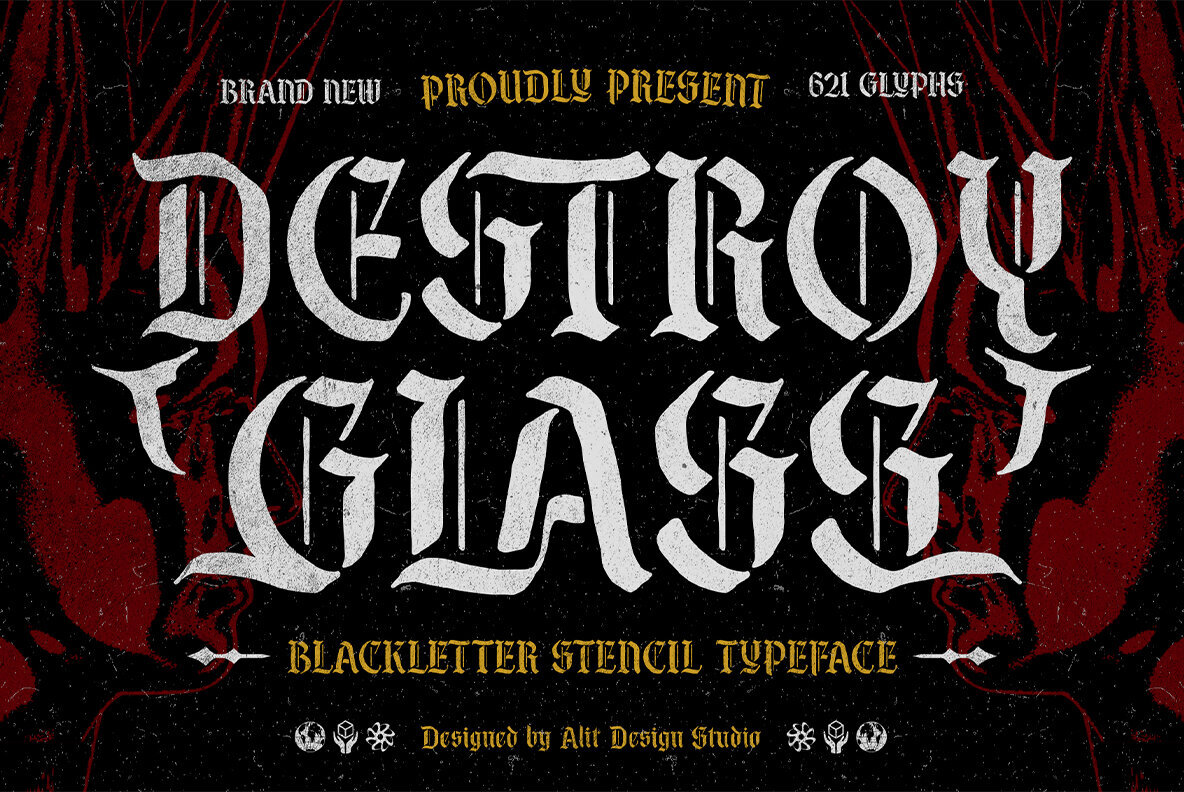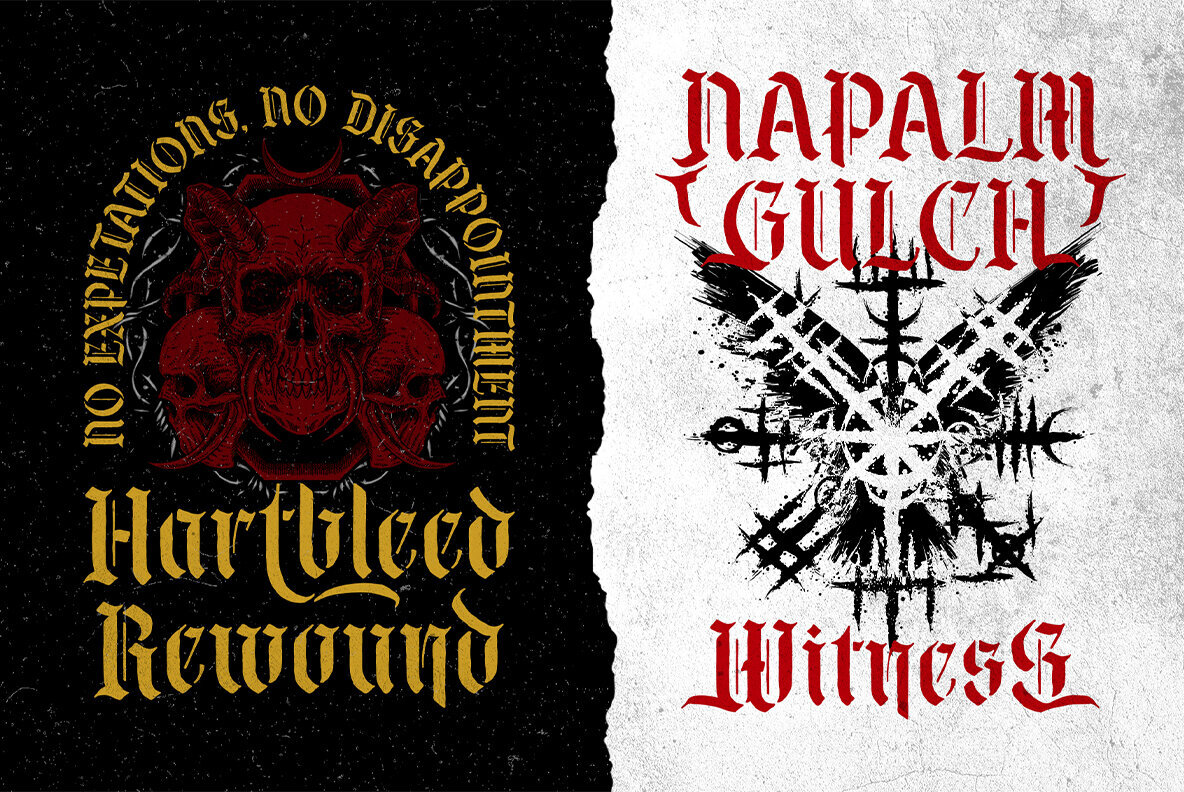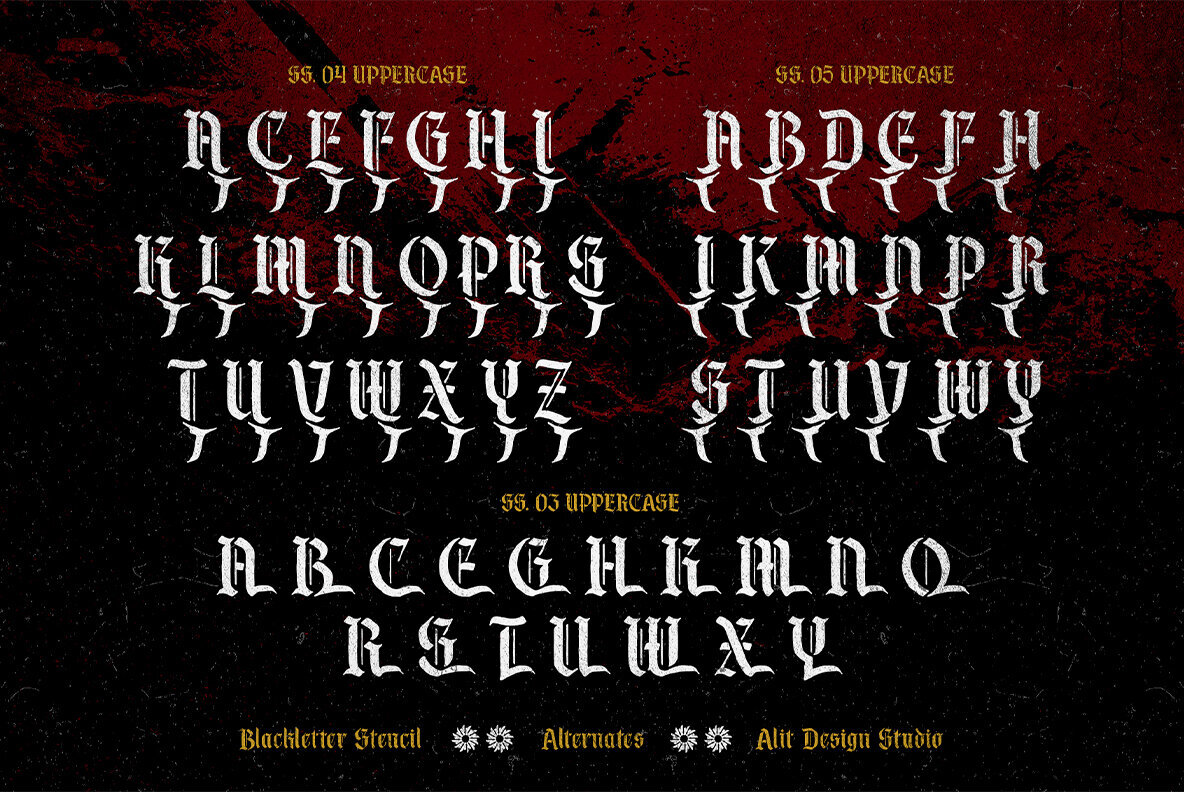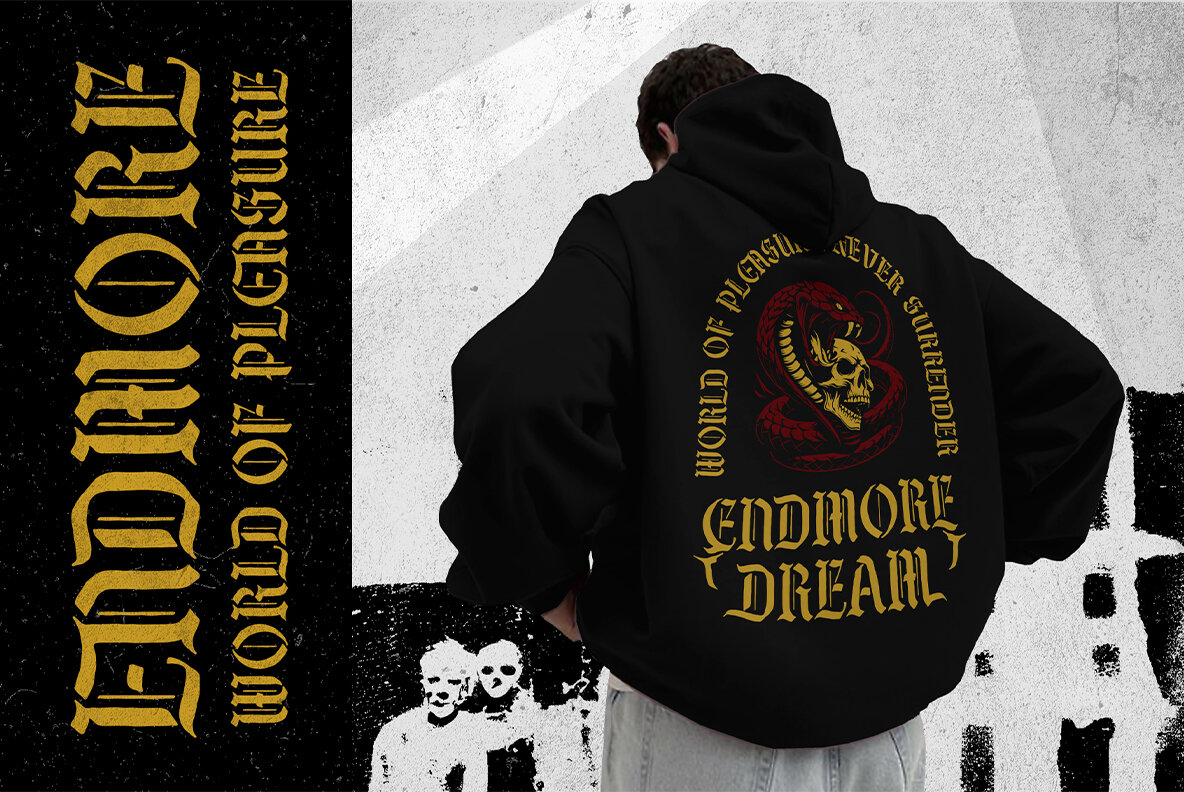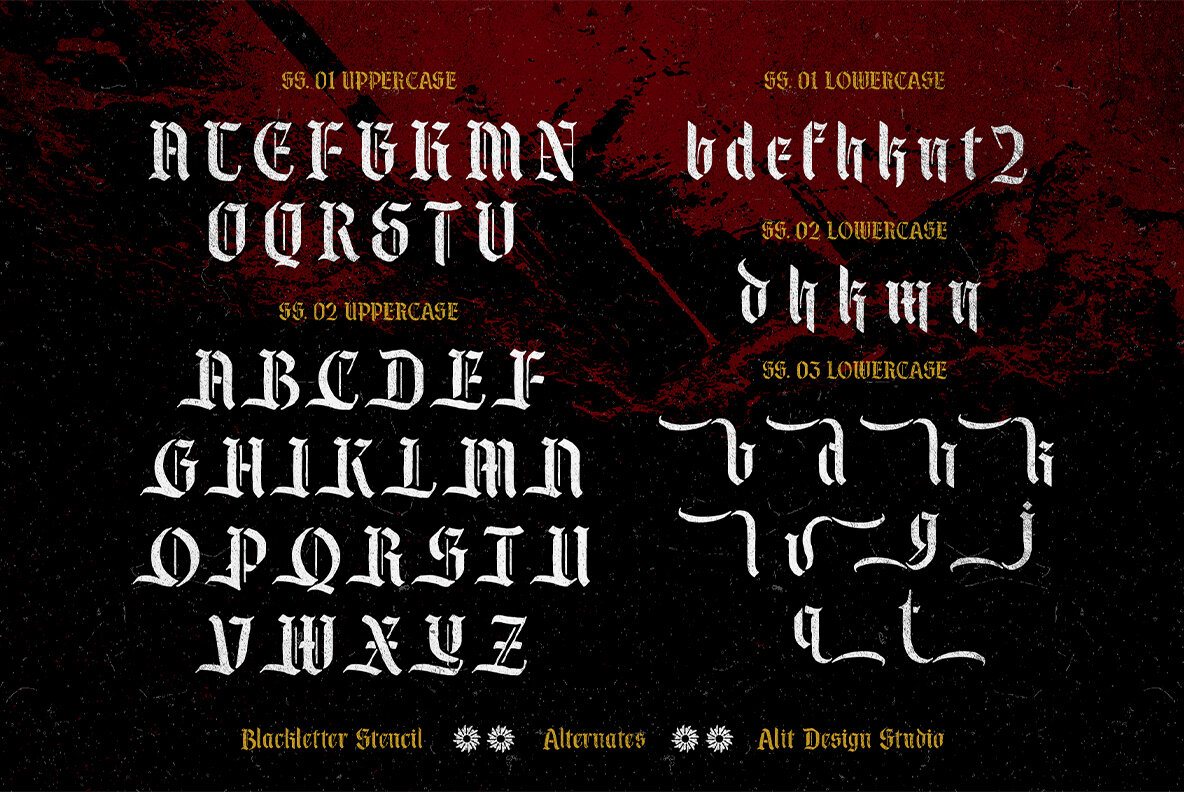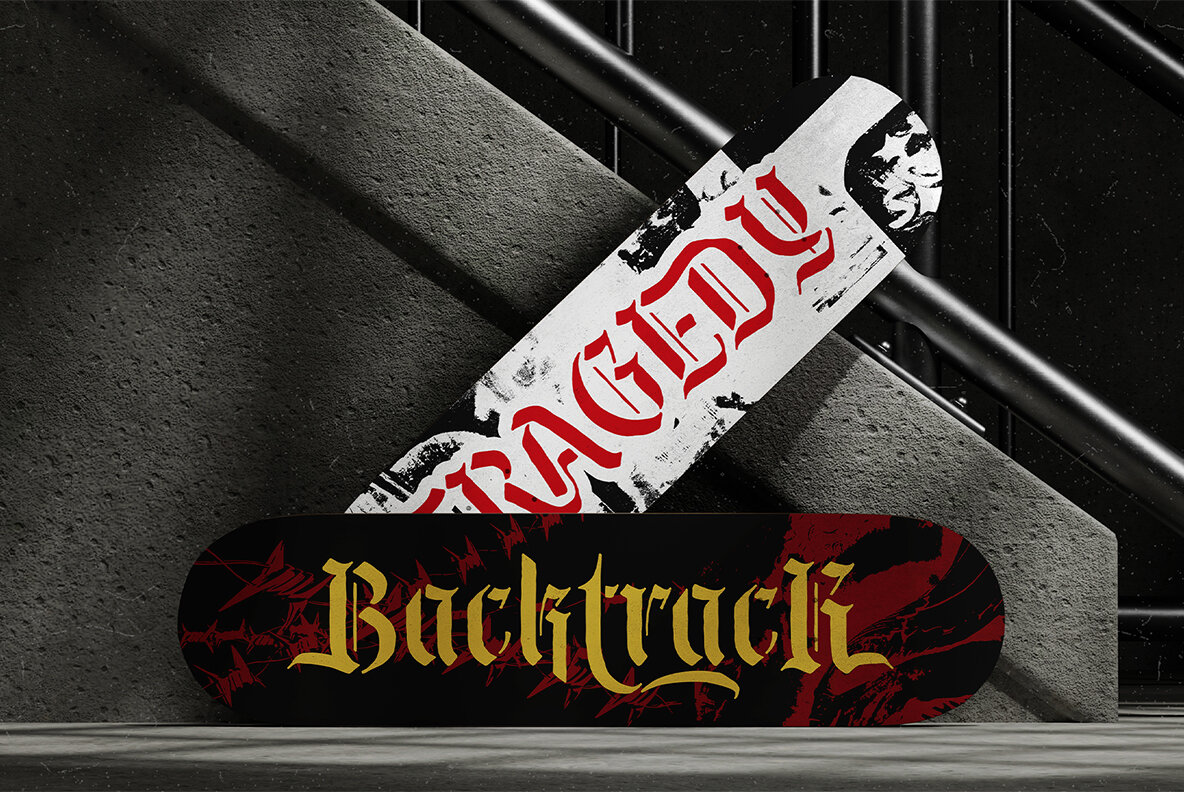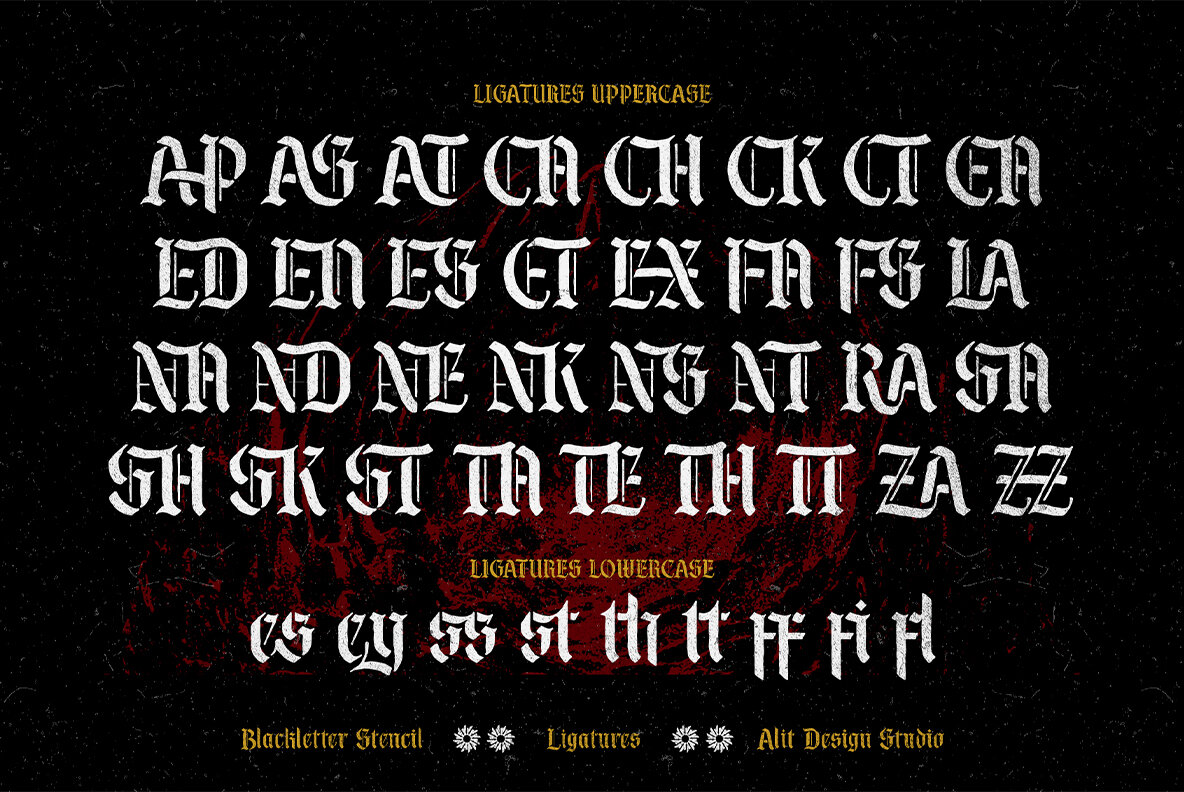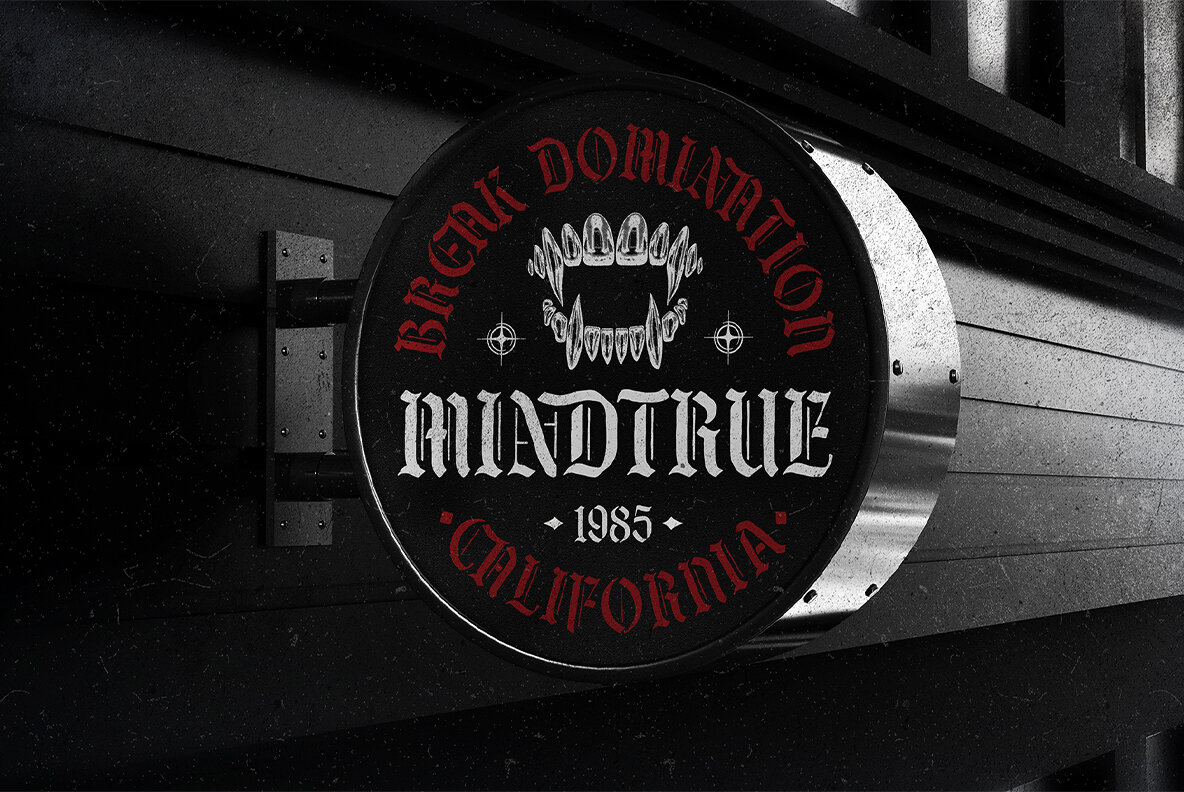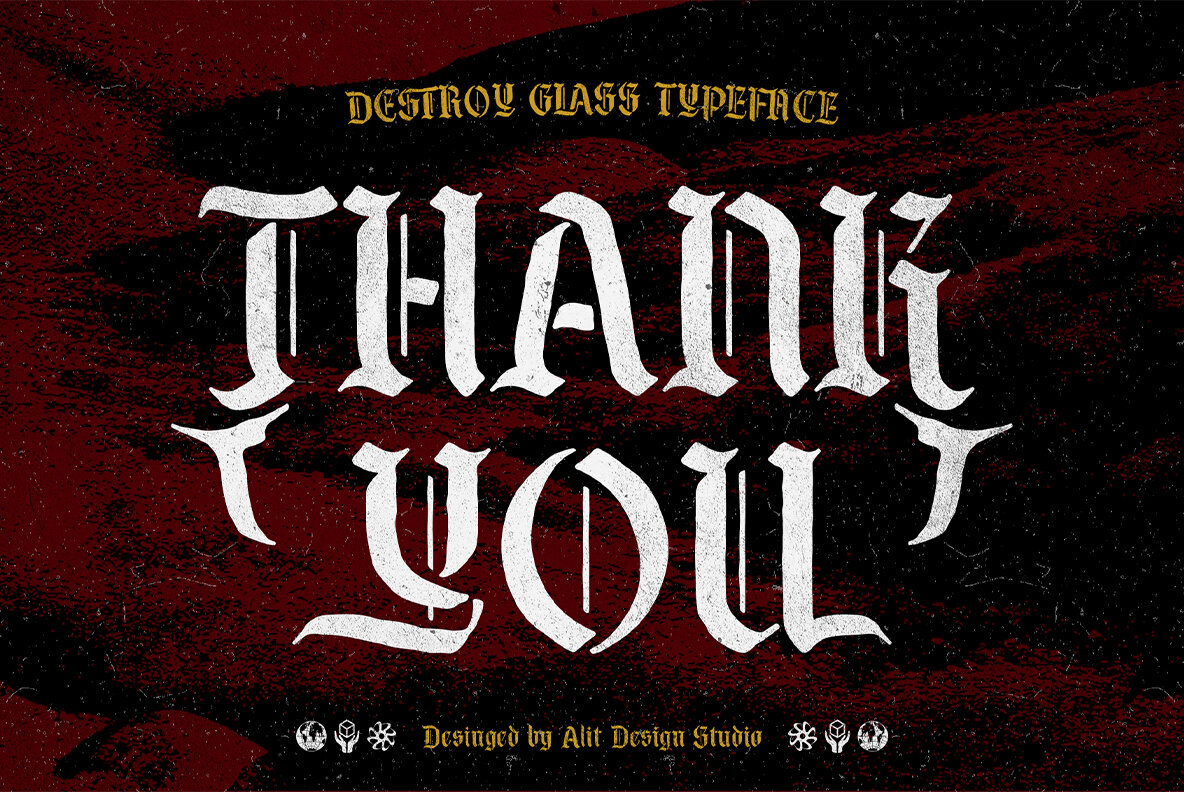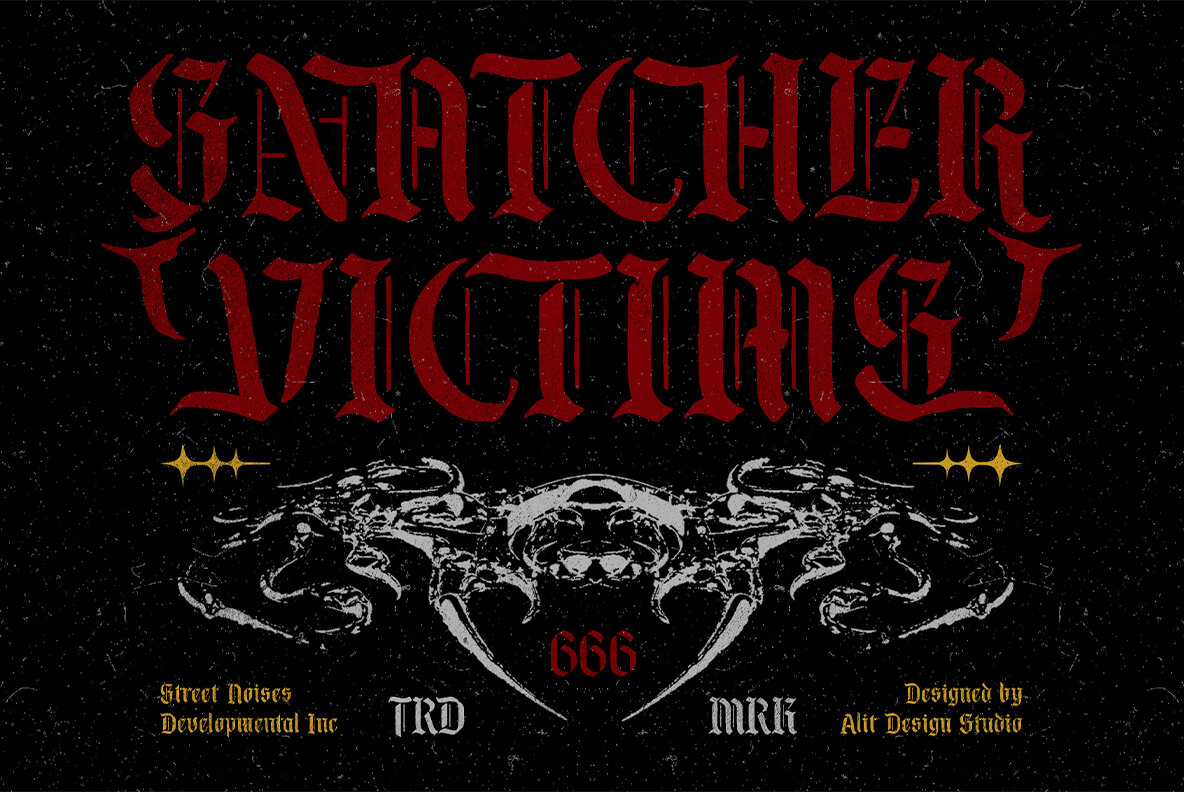
Destroy Glass Font
Destroy Glass Regular
Embrace the fusion of boldness and elegance with Destroy Glass Blackletter Font, a finely crafted blackletter stencil typeface that commands attention. Ideal for capturing a vintage gothic aesthetic or embracing a modern edgy style, this font strikes the perfect balance between tradition and rebellion. Why consider Destroy Glass for your next project? It is the perfect fit for logos, posters, album covers, apparel design, and other creative ventures. Destroy Glass Blackletter Font merges the historic allure of blackletter typography with a contemporary stencil twist. Capture strength, sophistication, or a daring edge with this versatile typeface, ensuring your designs leave a lasting impression.Destroy Glass Blackletter Font